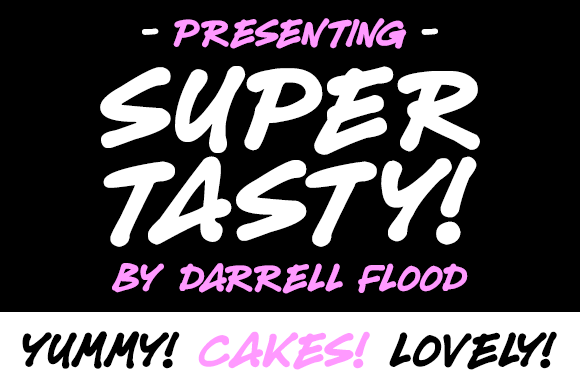
Super Tasty Font
About Super Tasty Font
The Super Tasty is a bold, organic, expressive font in a loose hand-written style. Perfect for signboards and food products!